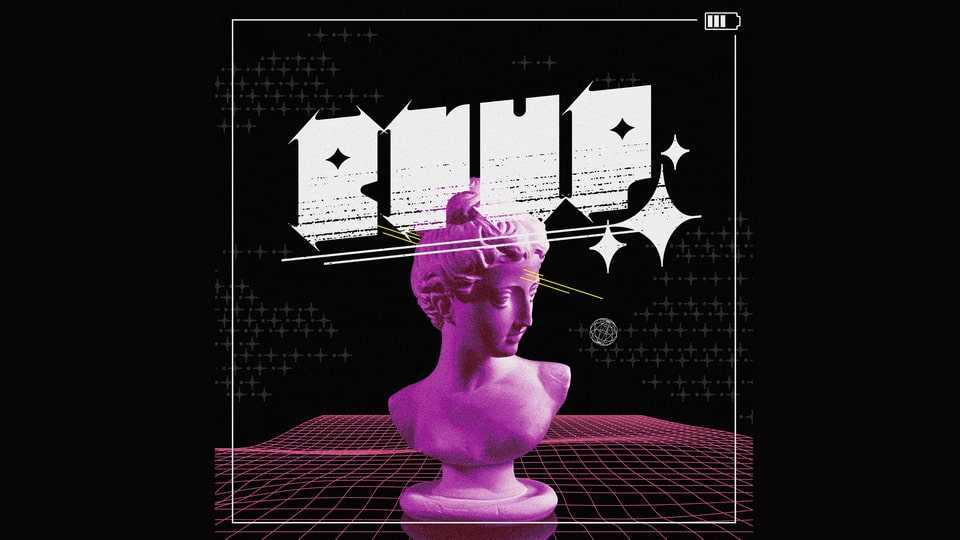
Download ERUP-Type font, a heavy and blocky typeface that seamlessly combines a cute and pop feel with sharp and defined details. The font is crafted to strike the perfect balance between a playful charm and a bold, structured design.